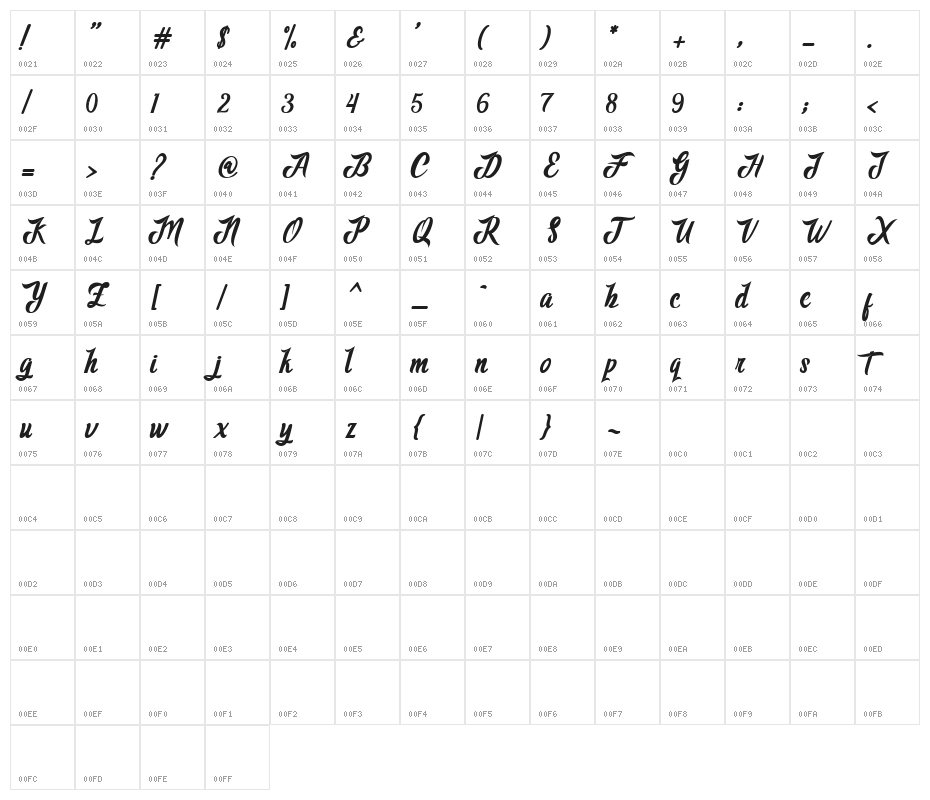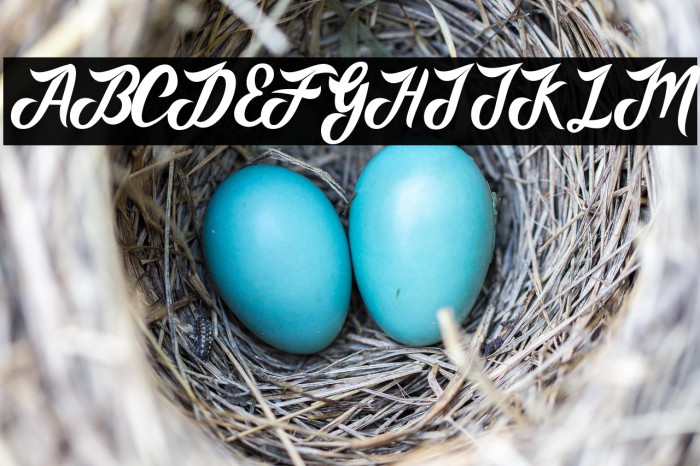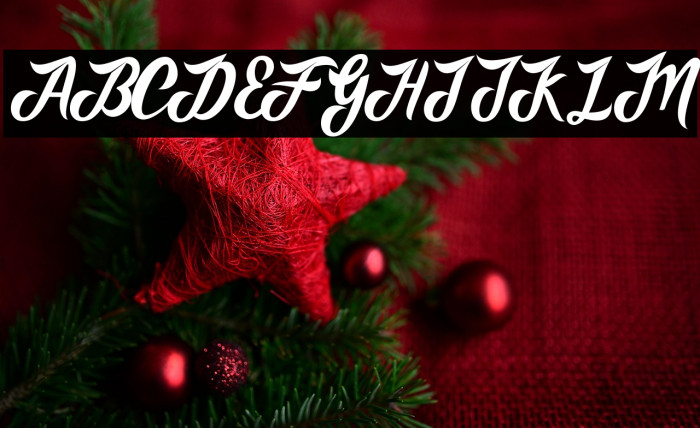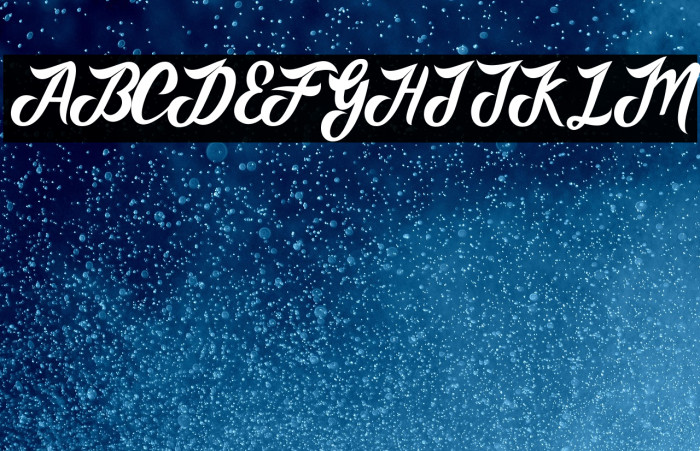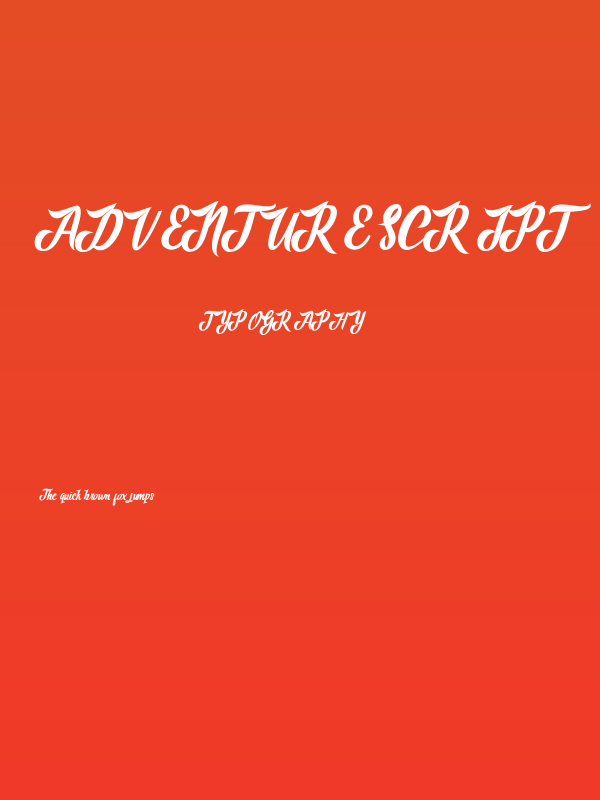
AdventureScript Font
AdventureScript Description
This font features a bold and flowing script style, characterized by its elegant and dynamic curves. The uppercase letters are distinct with sweeping lines and a sense of movement, while the lowercase letters maintain a consistent flow, enhancing readability. The numerals are well-integrated, matching the overall aesthetic with their rounded and fluid forms. Special characters are designed with the same attention to detail, ensuring a cohesive look across all elements. This font exudes a sense of adventure and creativity, making it ideal for projects that require a touch of elegance and flair.